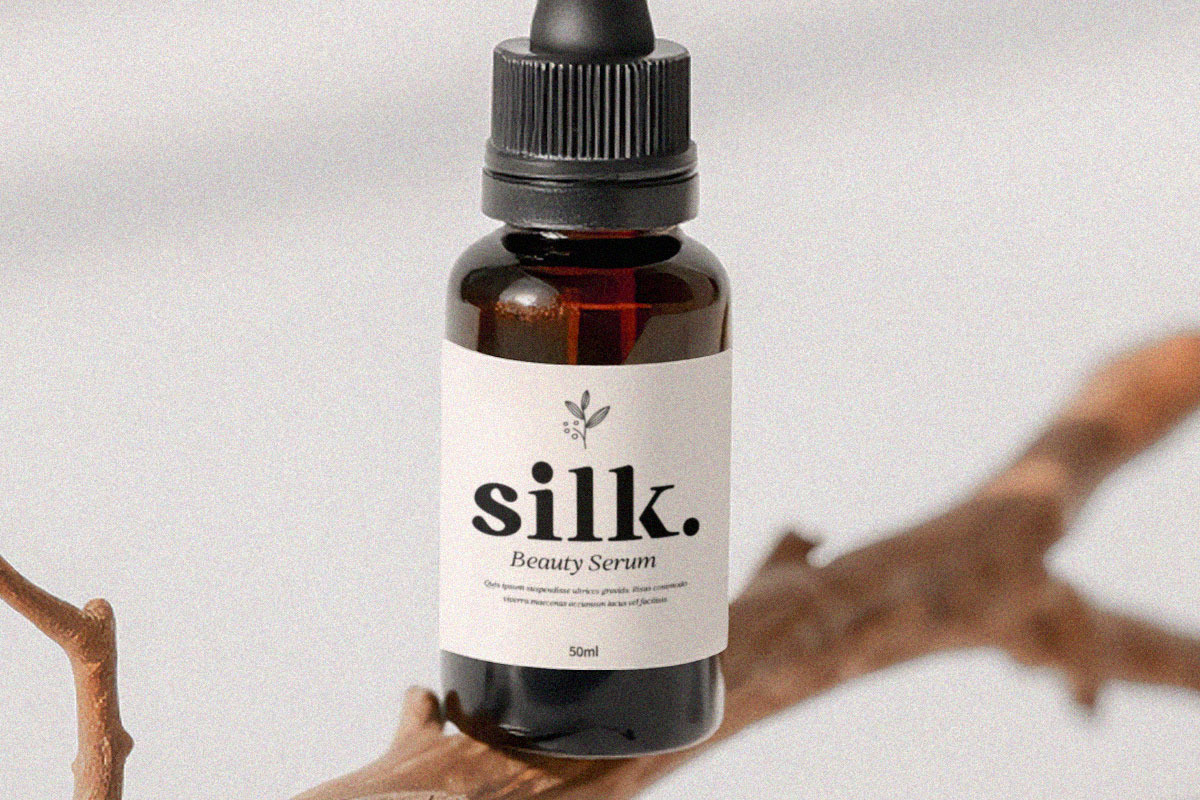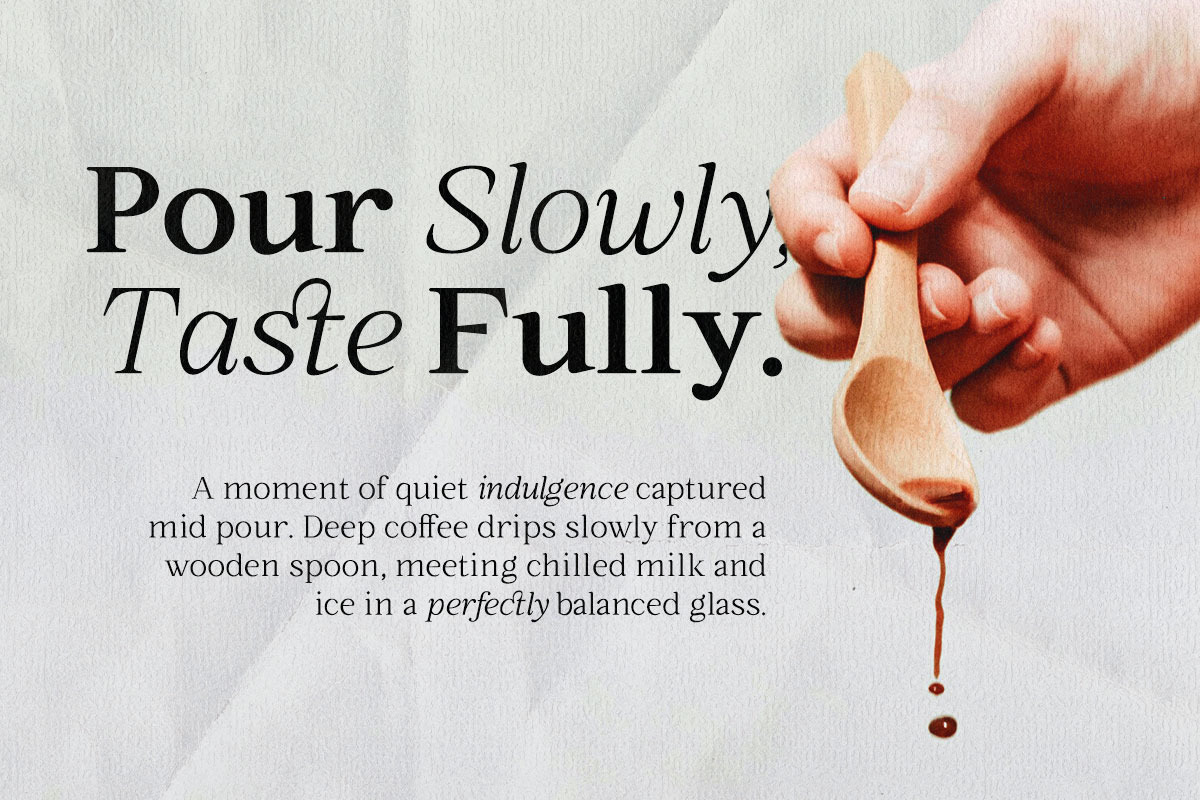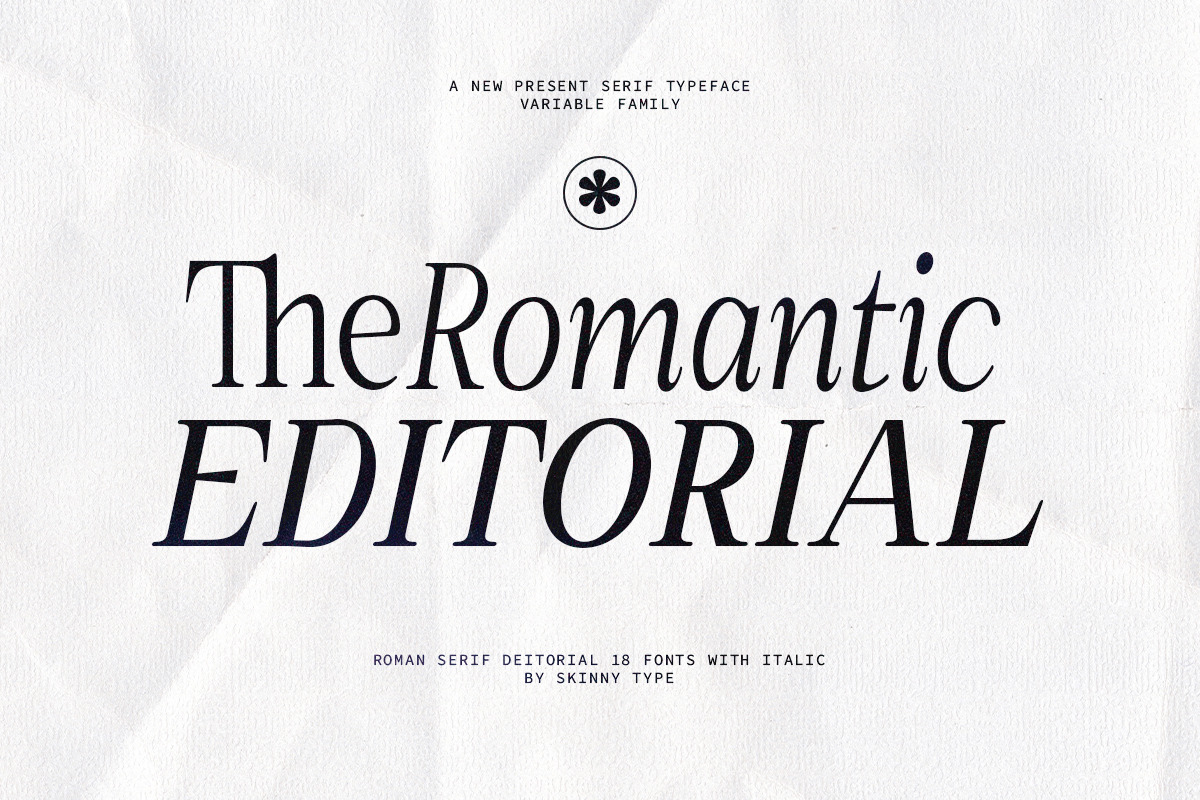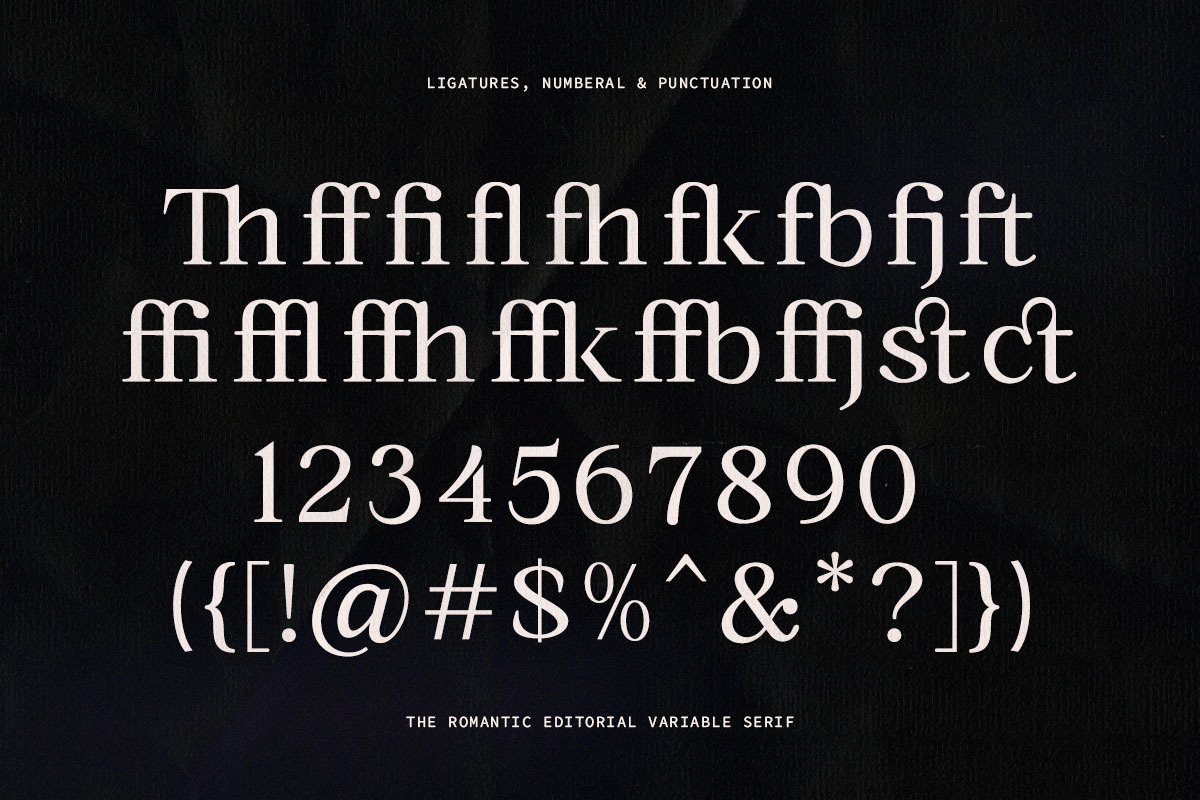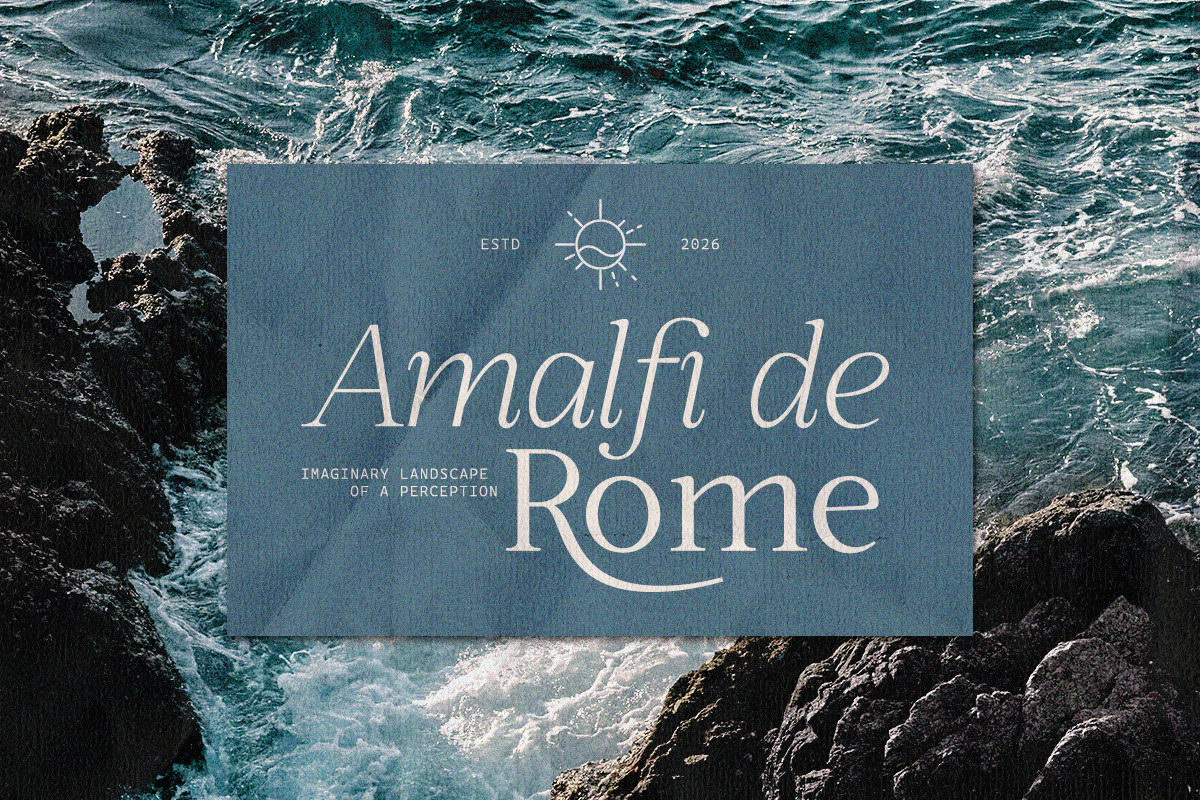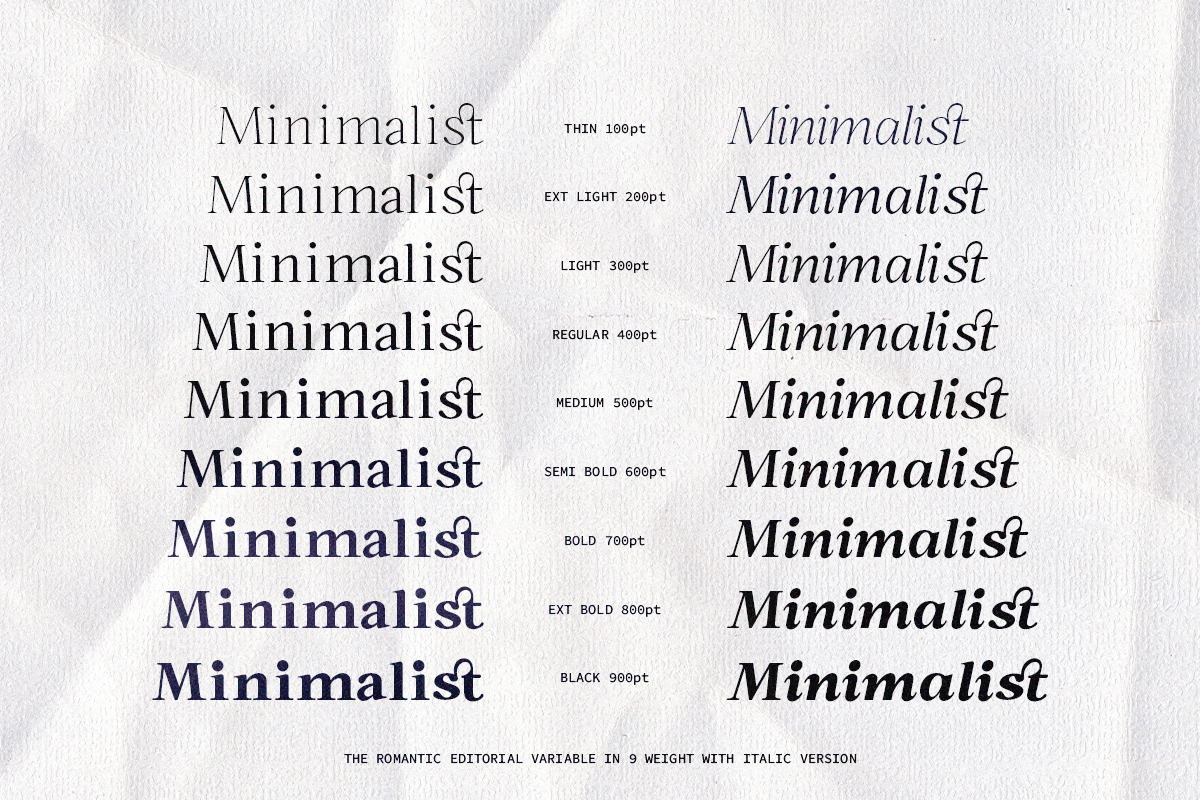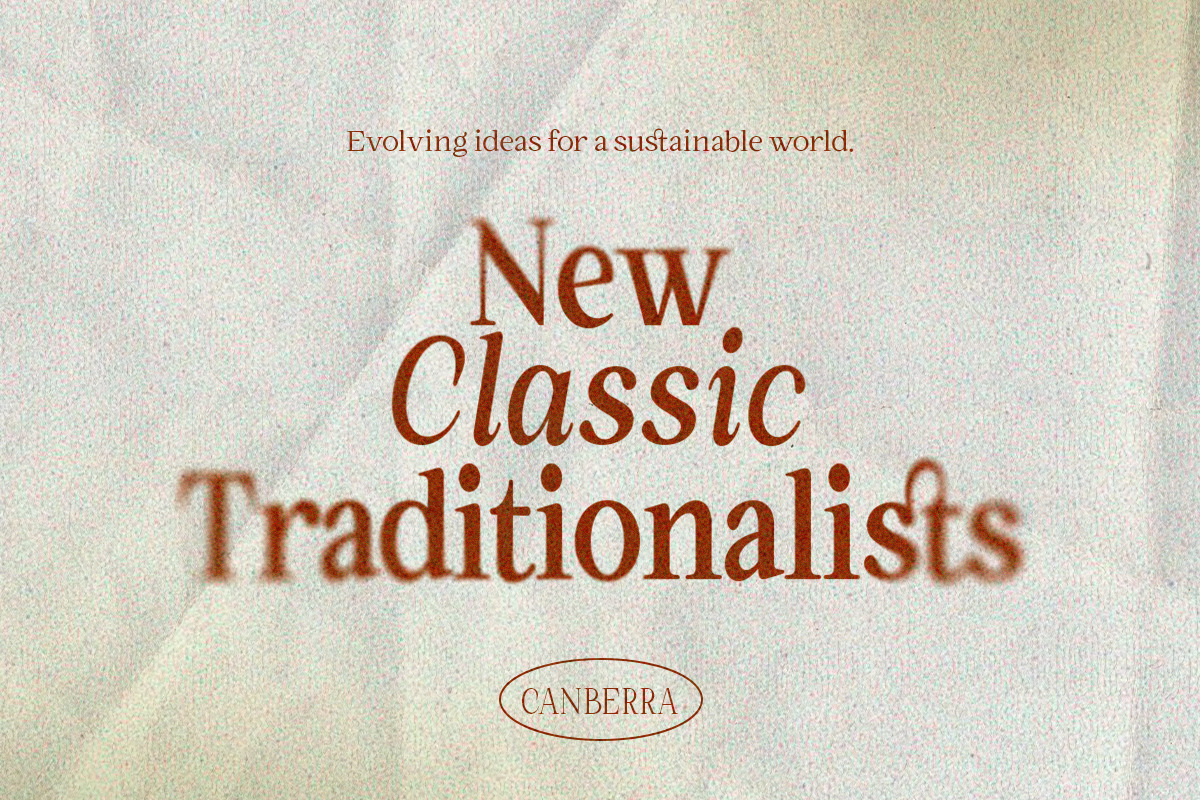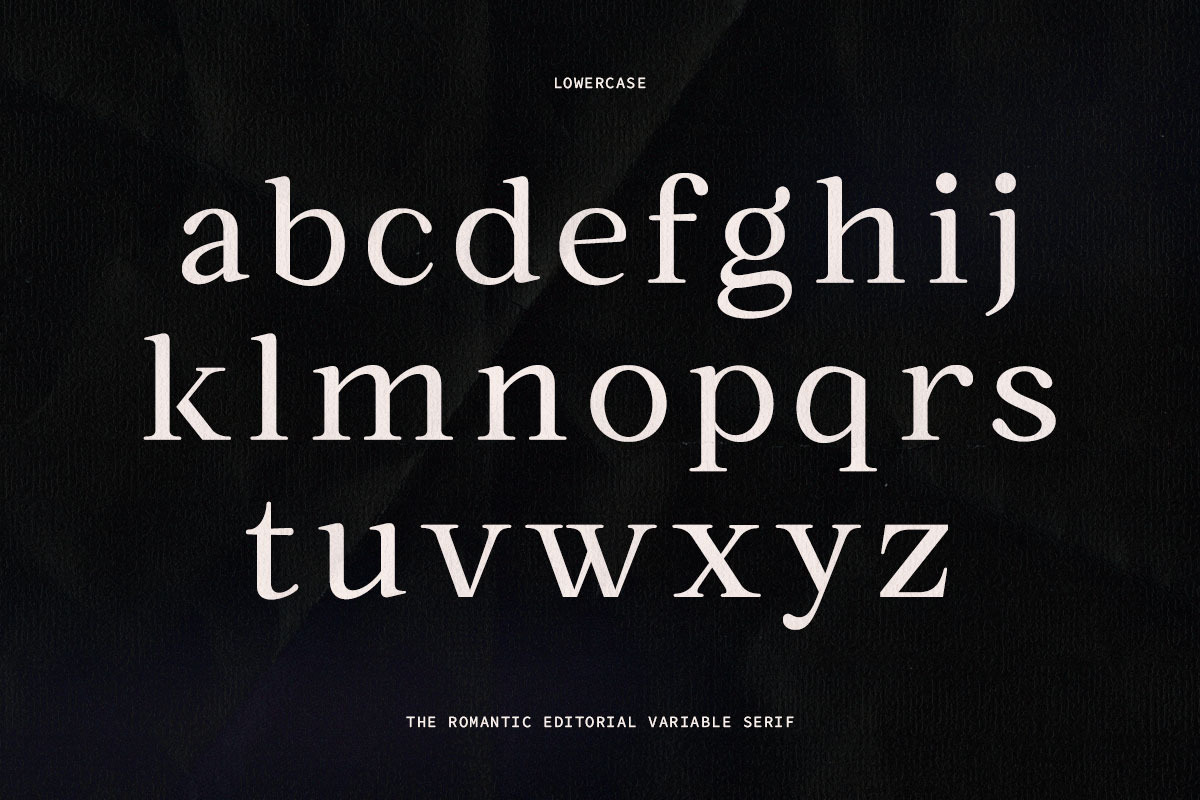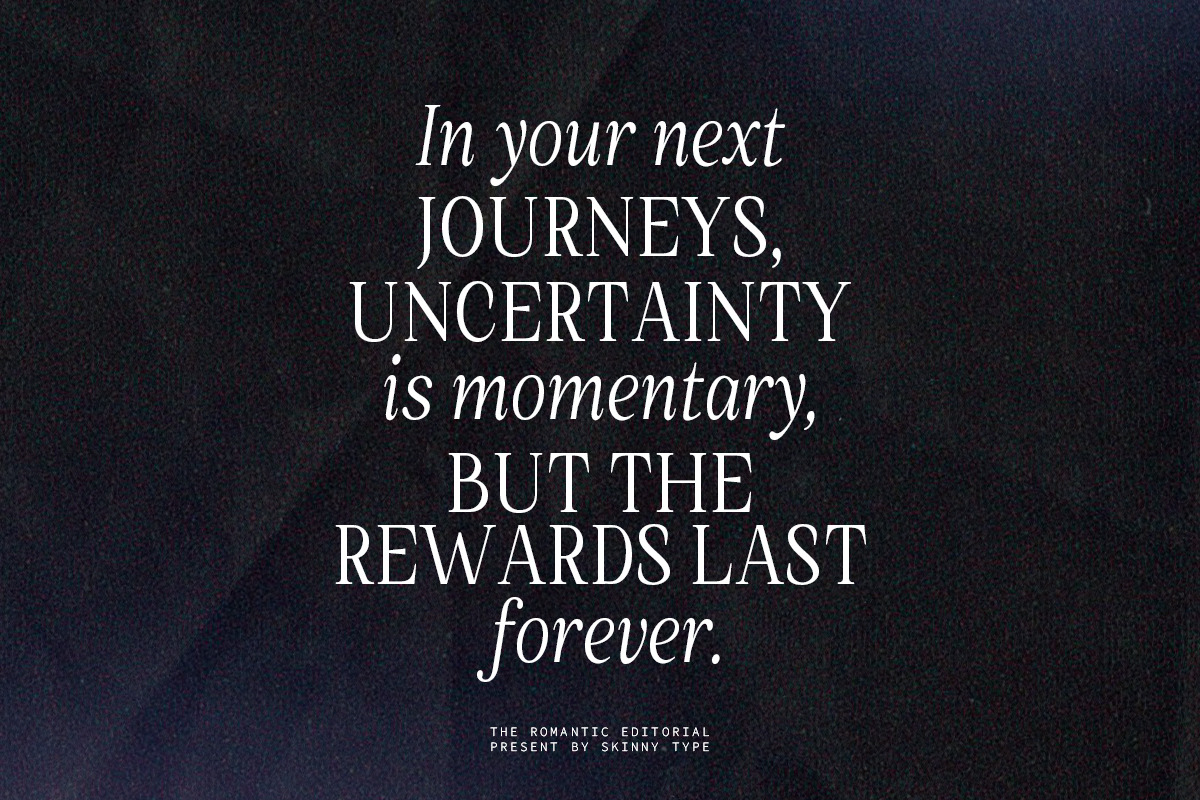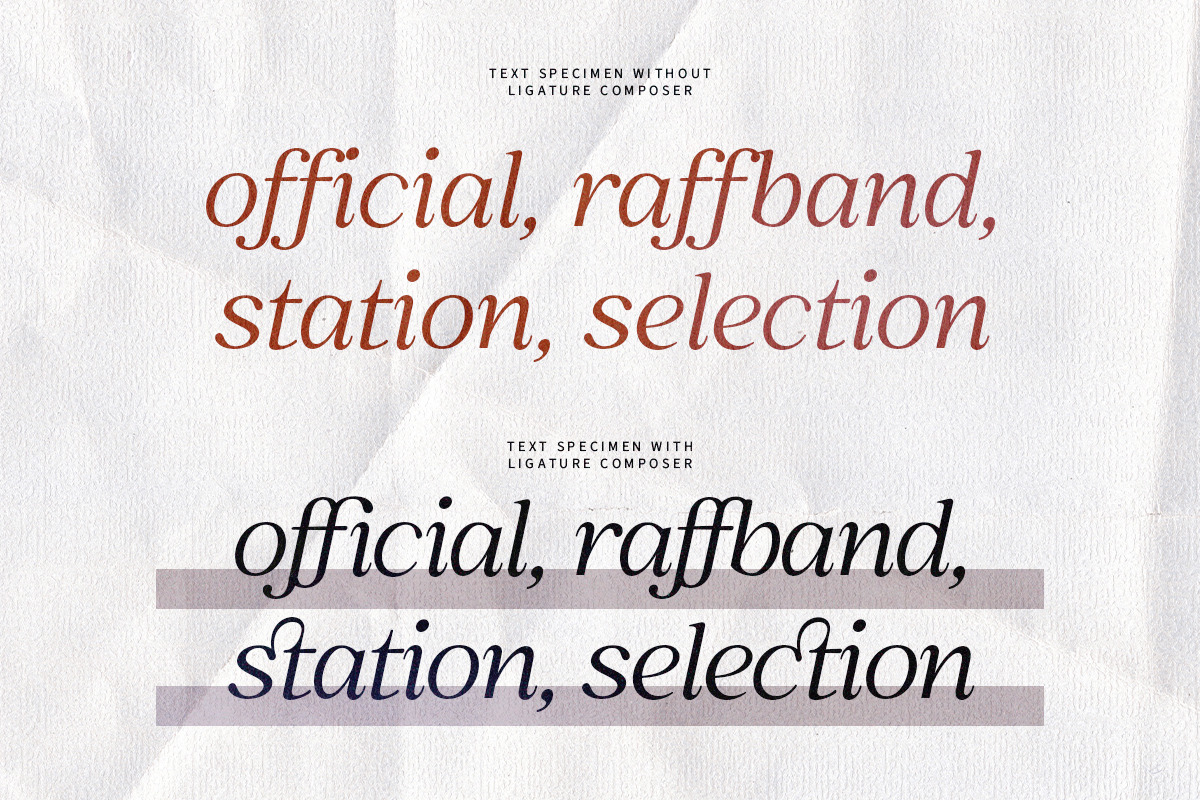
The Romantic Editorial | 18 Fonts
Romantic Editorial is a contemporary Roman serif typeface that balances classic editorial elegance with a modern romantic sensibility. It features a high contrast between thick and thin strokes, gently tapered serifs, and subtle curves that give the letterforms a graceful and expressive character. The italics are fluid and calligraphic, adding movement and emotion without sacrificing legibility.
Designed as a versatile editorial typeface family, this typeface works beautifully across headlines, subheadings, and long text, making it perfect for magazines, fashion layouts, luxury brands, book design, and cultural publications. What you'll get:
Available in 9 precise weights from Thin to Black, as well as in an italic version.